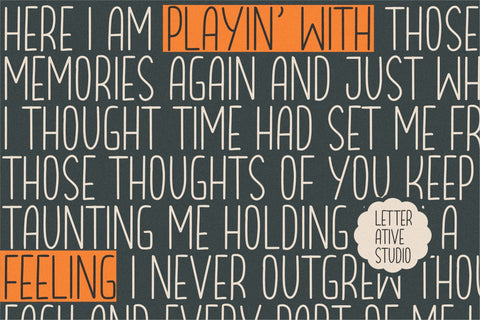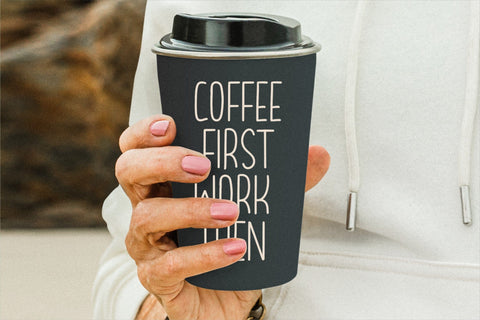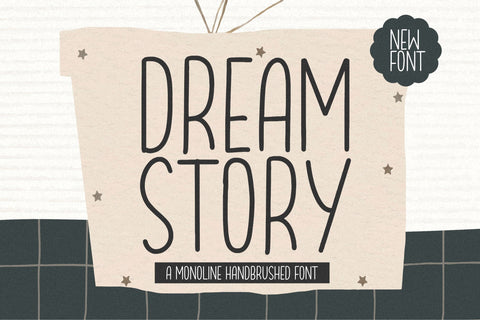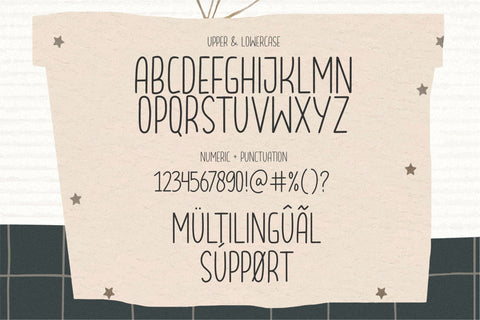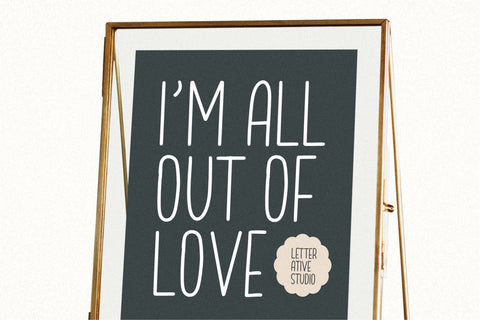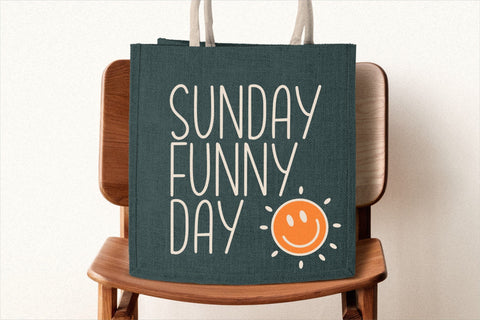
Dream Story Monoline Handbrushed Font
Introducing by Letterative Studio : Dream Story Font
Dream Story is a Monoline Handbrushed Font
Dream Story is a Monoline Handbrushed font. Whether you’re using it for crafts, digital design, presentations, or making greeting cards, this font has the potential to become your favorite go-to font, no matter the occasion!